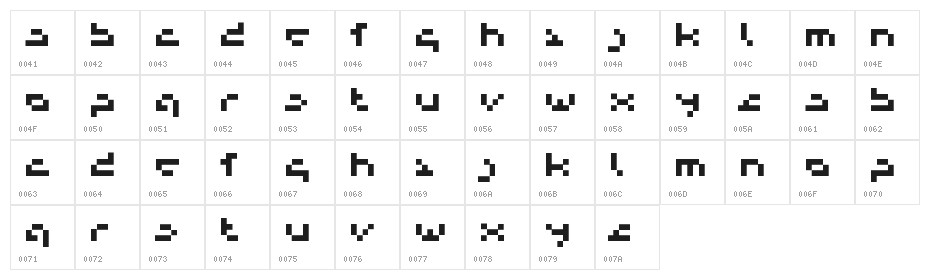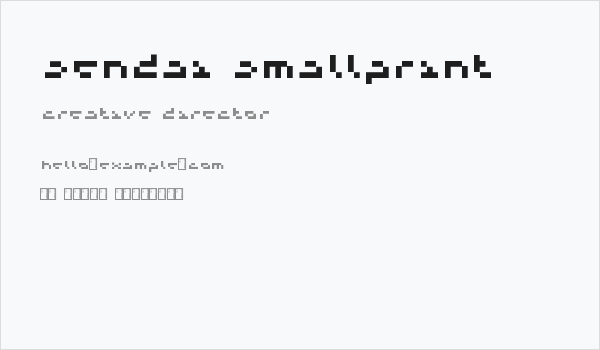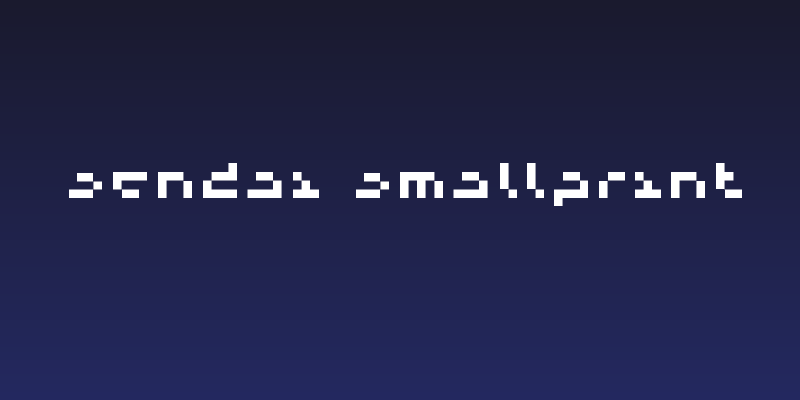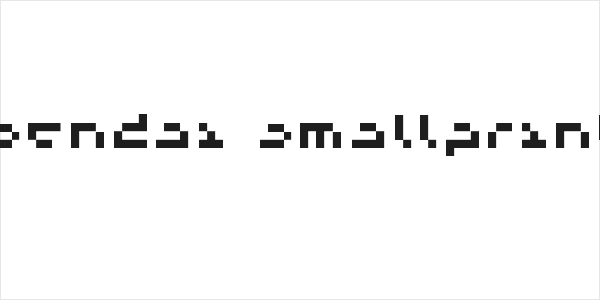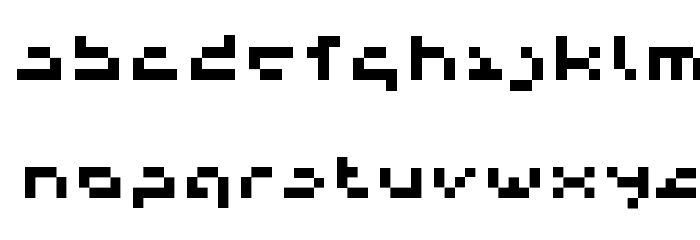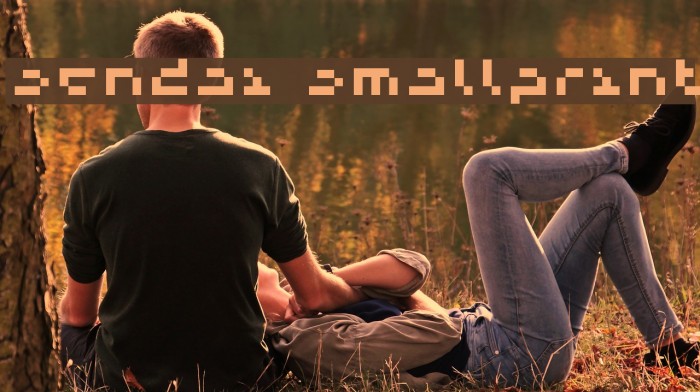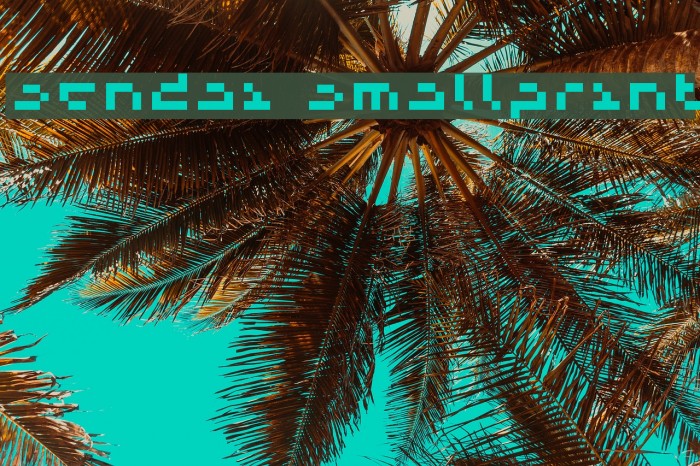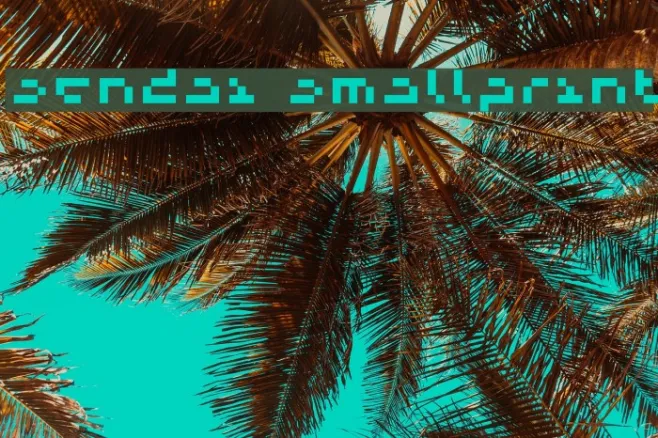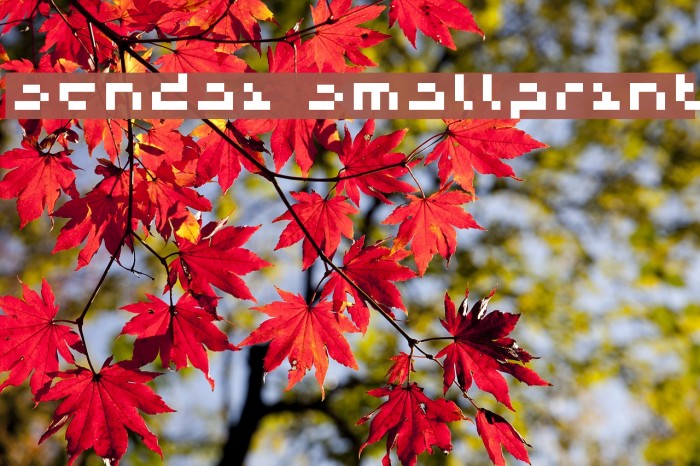
Sendai Smallprint Font
Sendai Smallprint Description
This font features a pixelated, blocky style reminiscent of early digital or video game typography. Each character is constructed with a uniform grid-like structure, giving it a distinctly retro and technological feel. The characters are evenly spaced, maintaining a consistent rhythm across the text. The font's simplicity and geometric design make it highly legible at small sizes, ideal for digital displays and interfaces. Its nostalgic aesthetic is perfect for projects that aim to evoke a sense of classic gaming or digital nostalgia.
| Use Case | Headlines, Logos, Digital displays |
| Proposed Projects | Ideal for video game design, retro-themed websites, digital art projects, and tech-related branding. |